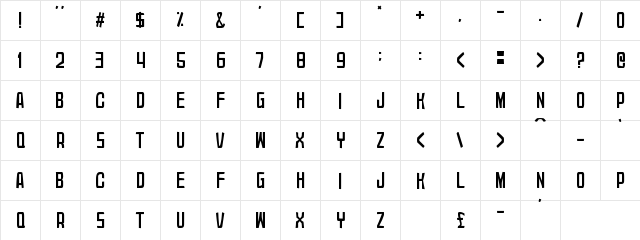
Critical Role Play Normal
| Designer | Joseph Dawson |
Design Context for Critical Role Play Typeface
Critical Role Play takes a measured approach to typography — its balanced proportions and neutral character make it a reliable workhorse for both digital and print work.